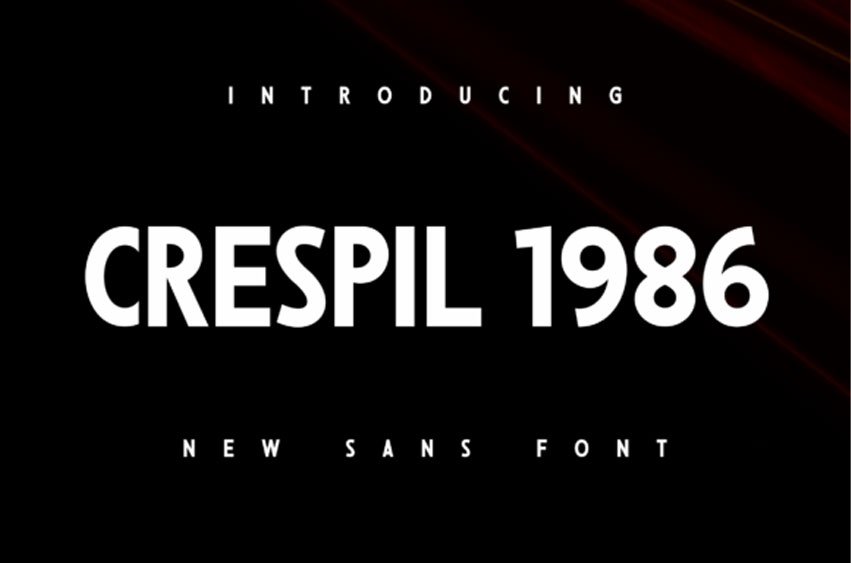
Crespil 1986 Font is a typeface designed to make your designs stand out with a bold and exclusive touch. This font is specialized for crafting gripping posters, captivating covers, brilliant banners, and tantalizing titles, guaranteed to seize every viewer’s eye.
It showcases unique artistic flair through its distinct stylization of letters, especially B, C, G, P, R, and S, providing a creative boost to your visual ventures. Exuding an intriguing blend of vintage charm and contemporary versatility, Crespil 1986 is an indispensable addition to the collection of designers on the quest for the exceptional.